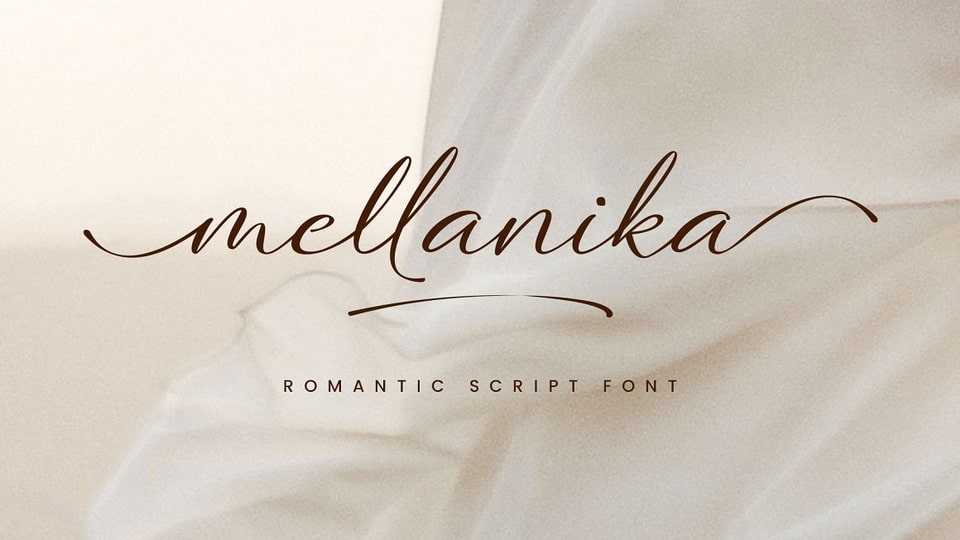
Download Mellanika font, a natural script typeface made with handwriting style. This font also has a signature touch that is versatile to apply for many purposes.